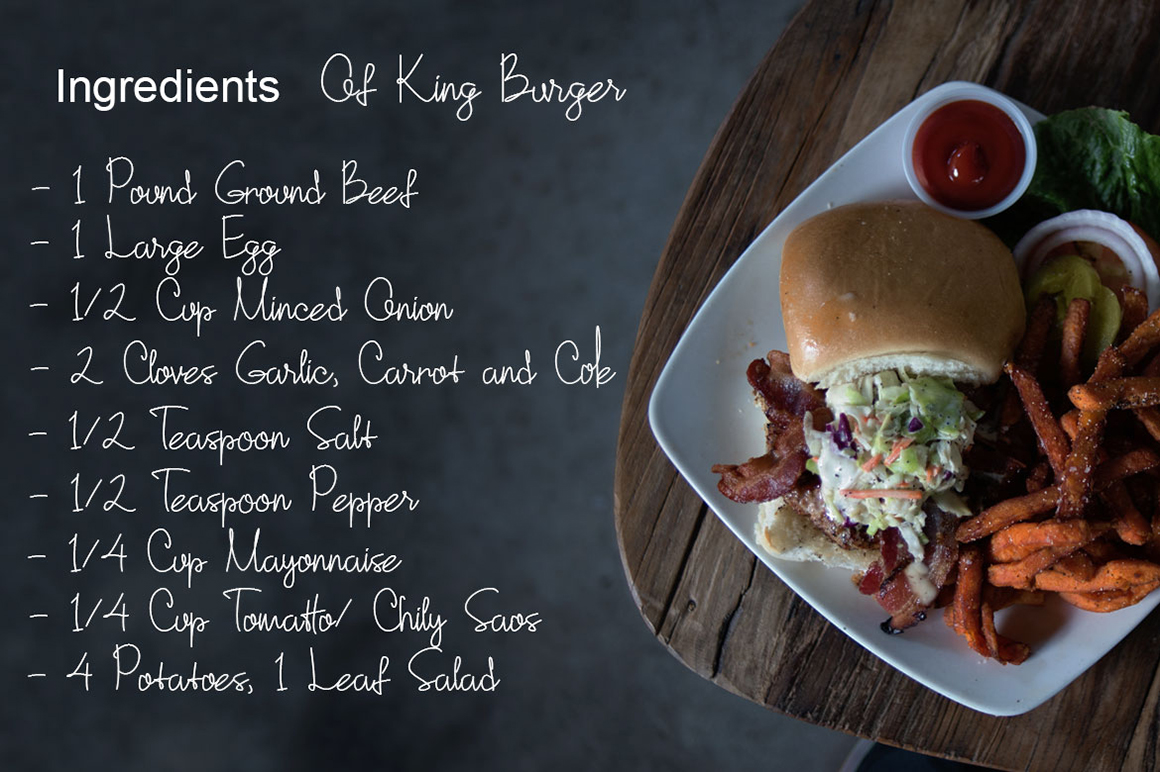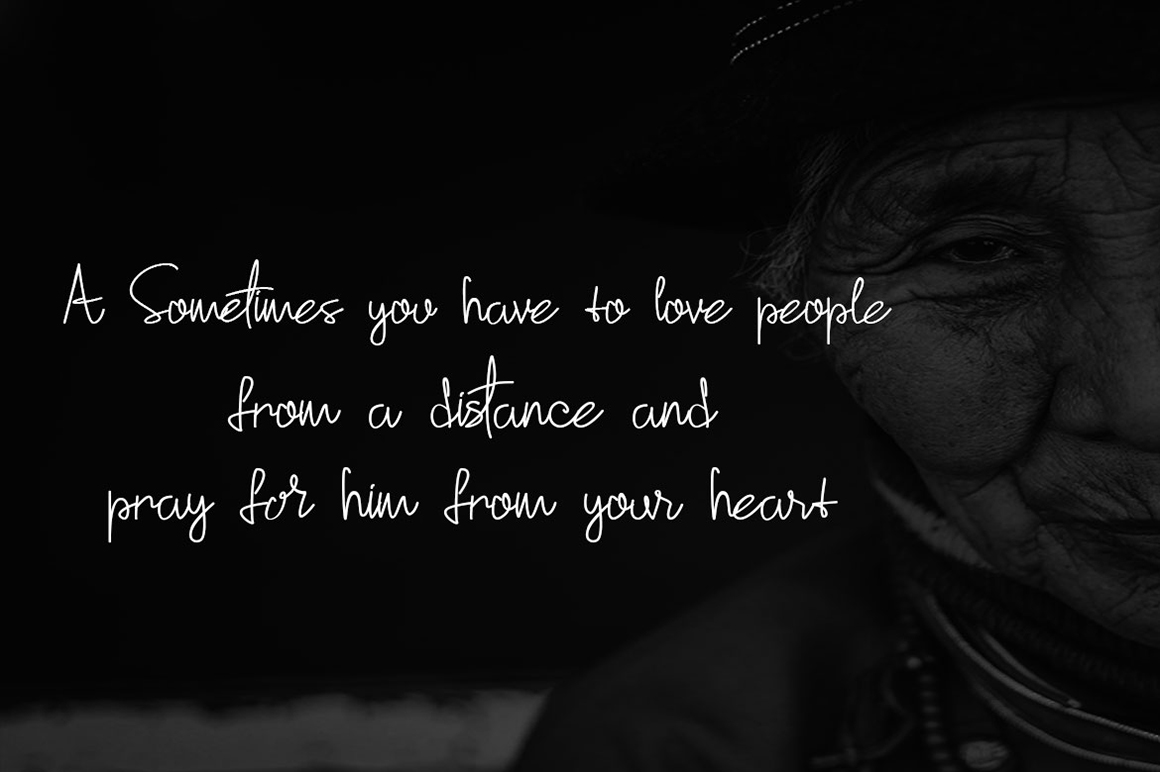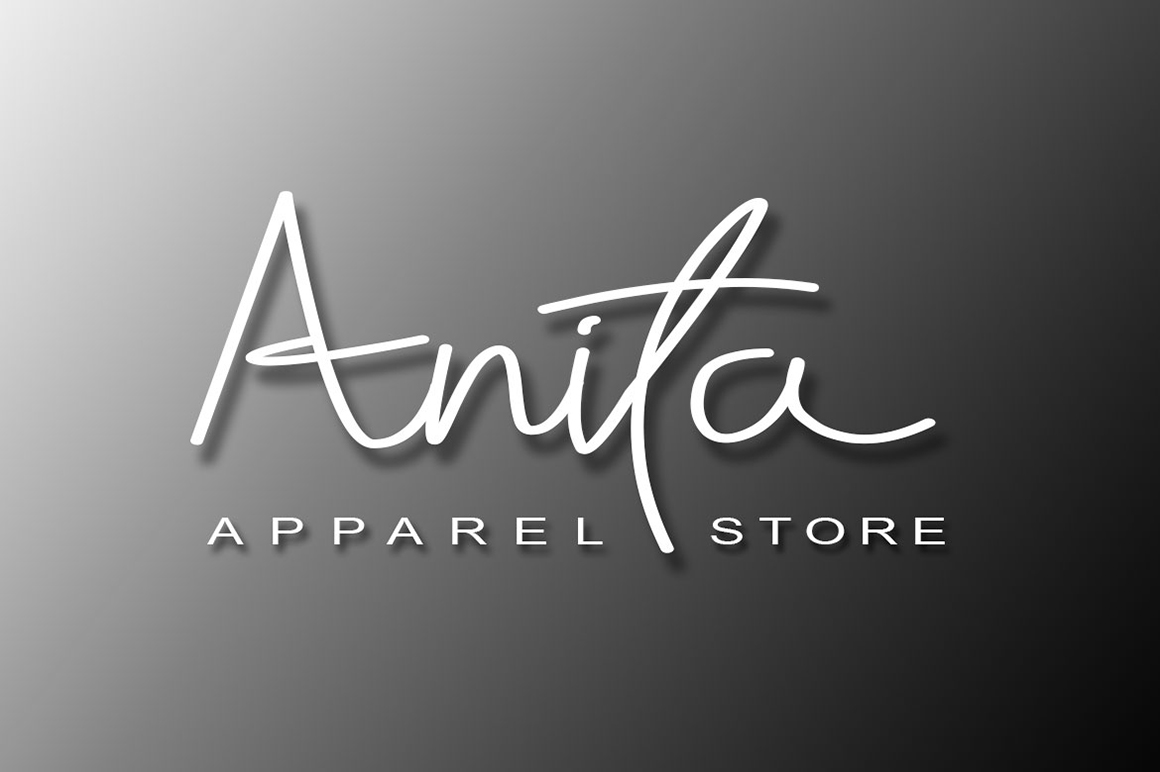
Struggling Free Font
Struggling Free Font is a Natural Handwriting Font. It’s very suitable for all your design an business needs such as signature, logos, branding, wedding events, interior design, quote, and much more. This free typeface was designed by a talented Fahrul Anggoro. If you like it don’t forget to check out the full version.